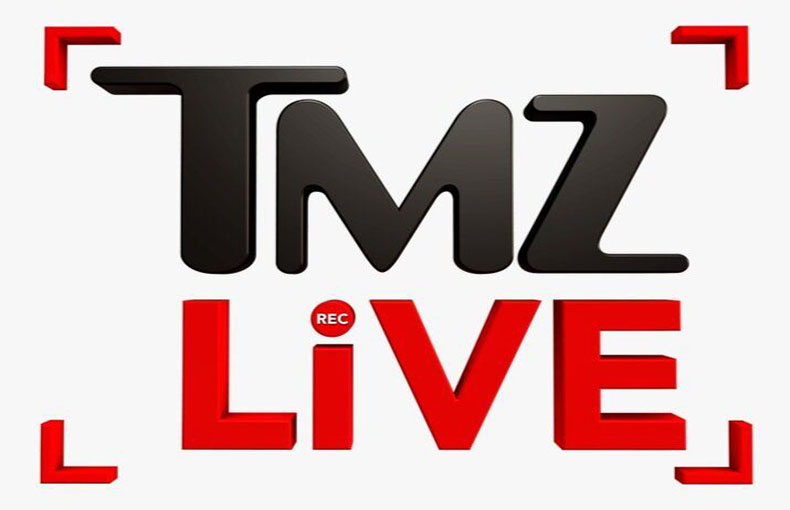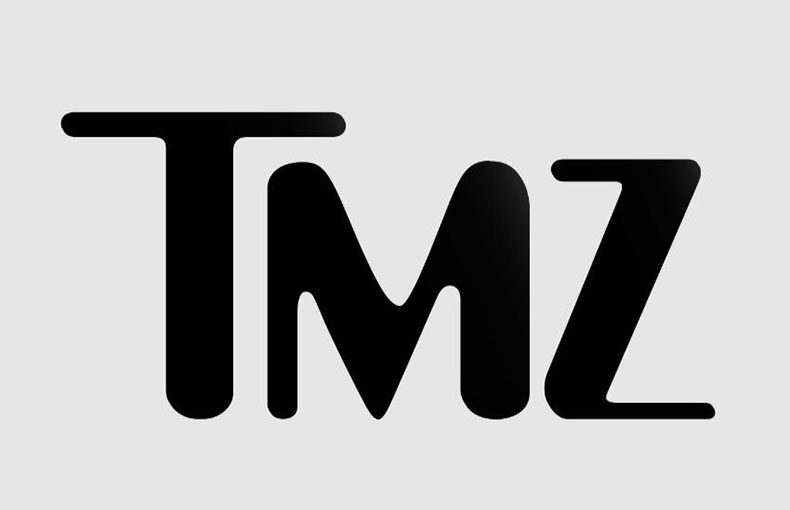
The TMZ logo font is a bold, sans-serif typeface that perfectly embodies the website’s edgy and modern vibe.
The font features thick, blocky letters with minimal curves, making it easily recognizable and memorable.
The boldness of the font perfectly complements TMZ’s celebrity-focused content, ensuring that the website’s logo stands out and catches the eye.
Thus, the TMZ logo typeface is a great example of how typography can play a significant role in establishing a brand’s identity and helping it to stand out in a crowded market.
The font used for the TMZ logo is very similar to Amelia Regular, a display font designed by Stanley Davis in 1967.
This font family contains 399 glyphs and 148 binary stored kerning pairs. And it also supports 77 different languages.
The font has an attractive and powerful presence since it is thick and bold. It separates itself from other types, making it memorable and readily recognizable.
What font is the TMZ logo?
The font used for the TMZ logo is very similar to Amelia Regular, a display font designed by Stanley Davis in 1967.
What font does TMZ use for articles?
The TMZ logo design is likely customized a bit, its letterforms are similar to the font Amelia. Amelia is available at FontPearl.